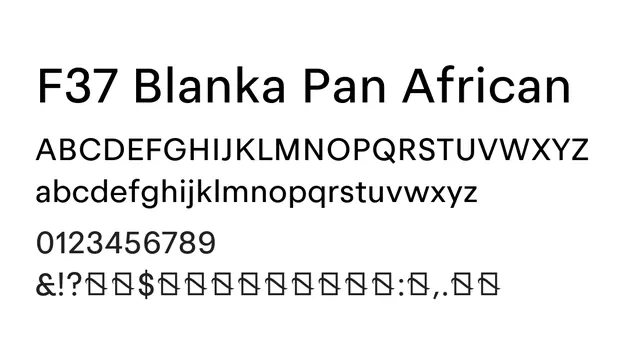
F37 Blanka
Contemporary geometric sans-serif with clean proportions, ideal for modern UI design, digital products, and editorial applications across a wide range of industries.
Versatile choice for body text in digital interfaces and long-form content. High legibility at small sizes and elegant appearance at large sizes make it suitable for everything from app interfaces to brand identities.
Works beautifully with Source Serif Pro or Lora for editorial layouts requiring serif-sans pairings, or stands alone as a complete font family.